Vintage Font Bundle 3
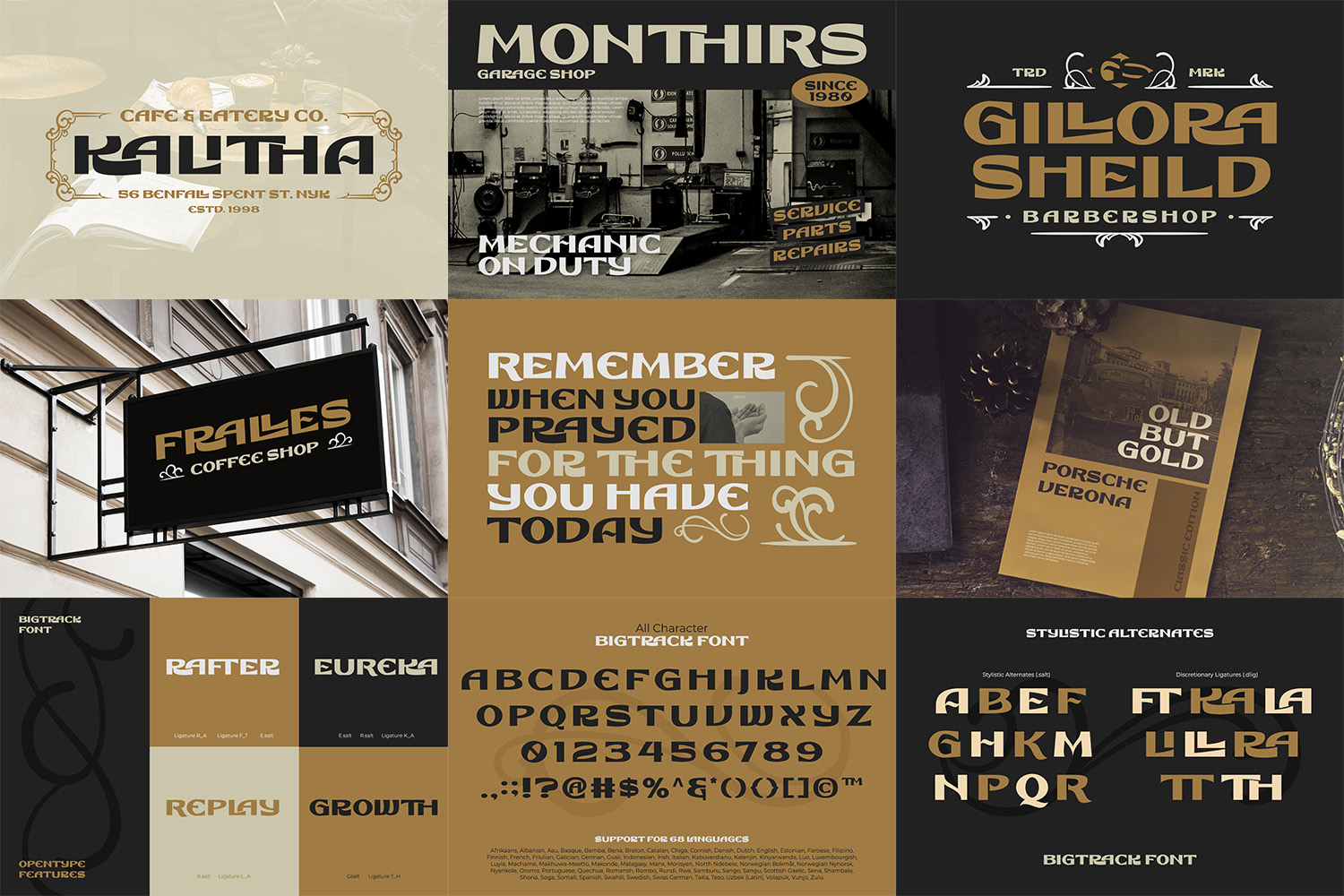
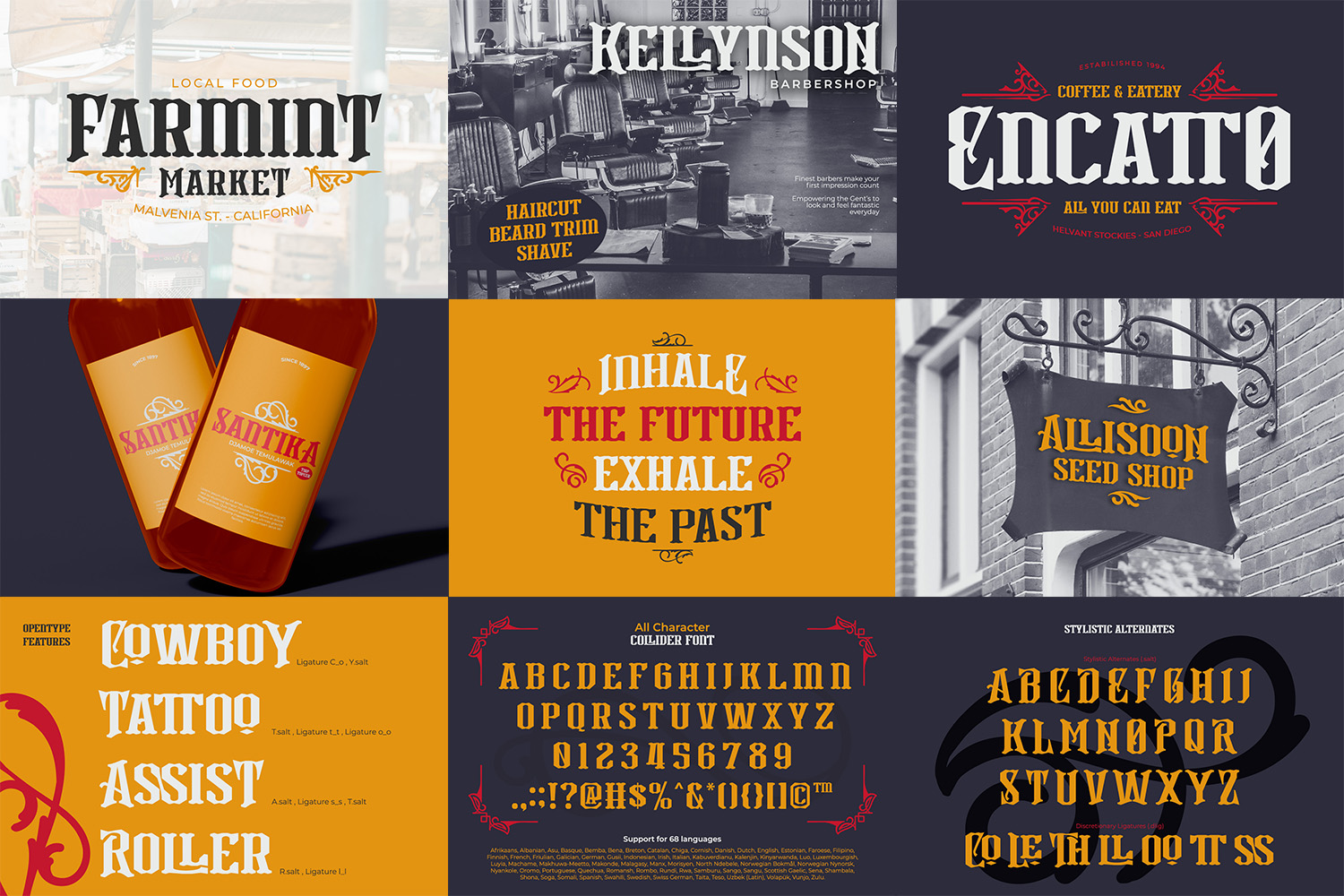
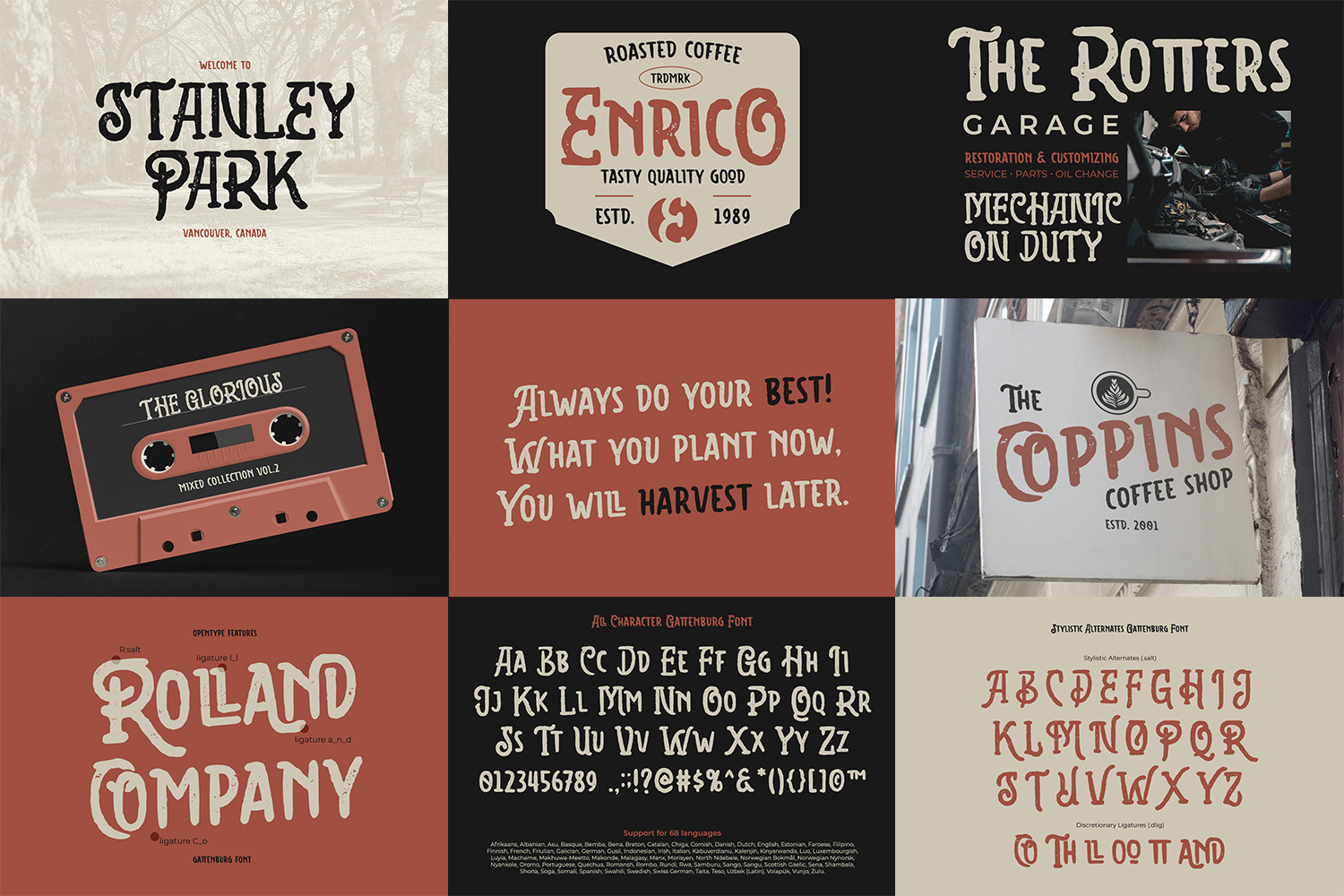
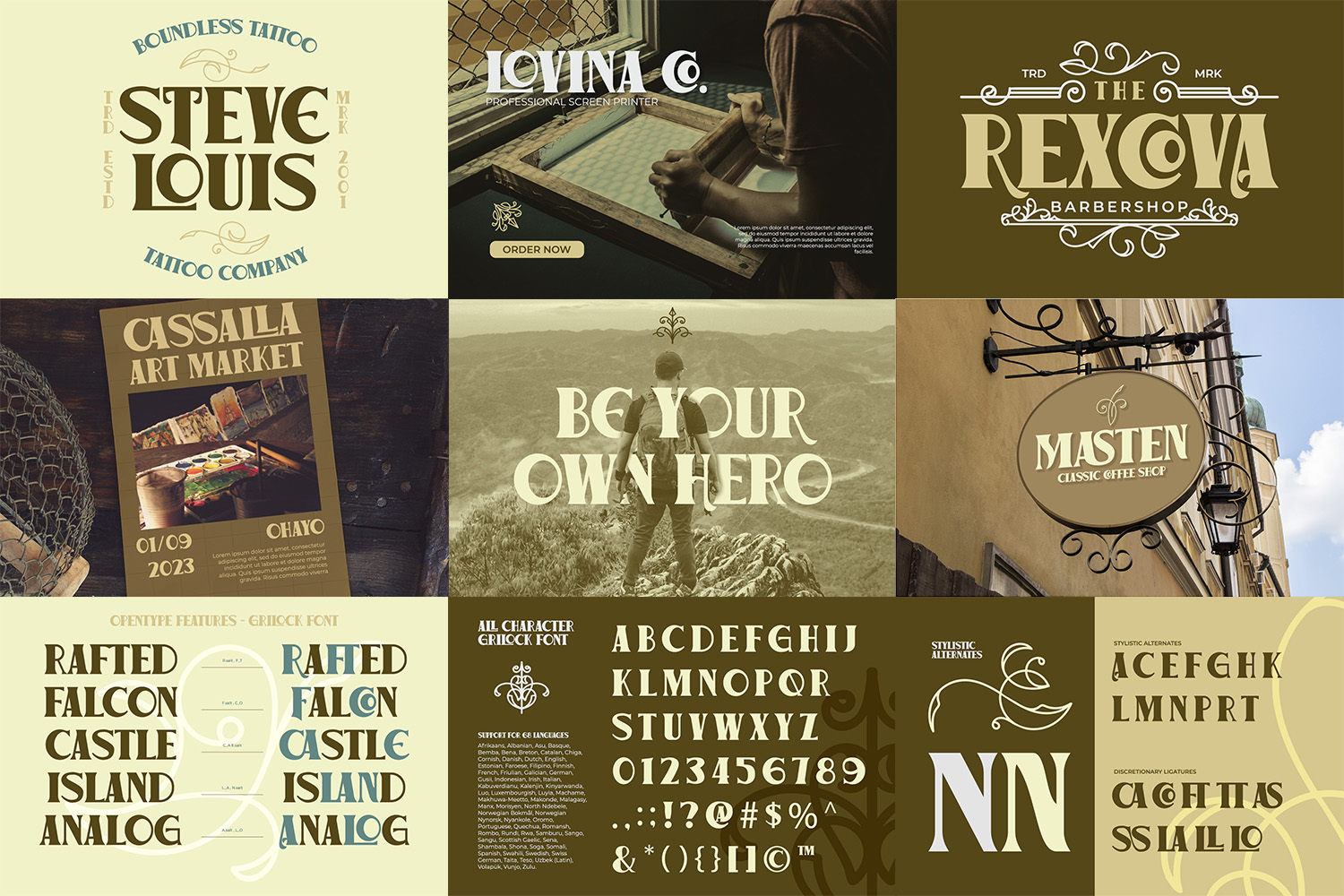
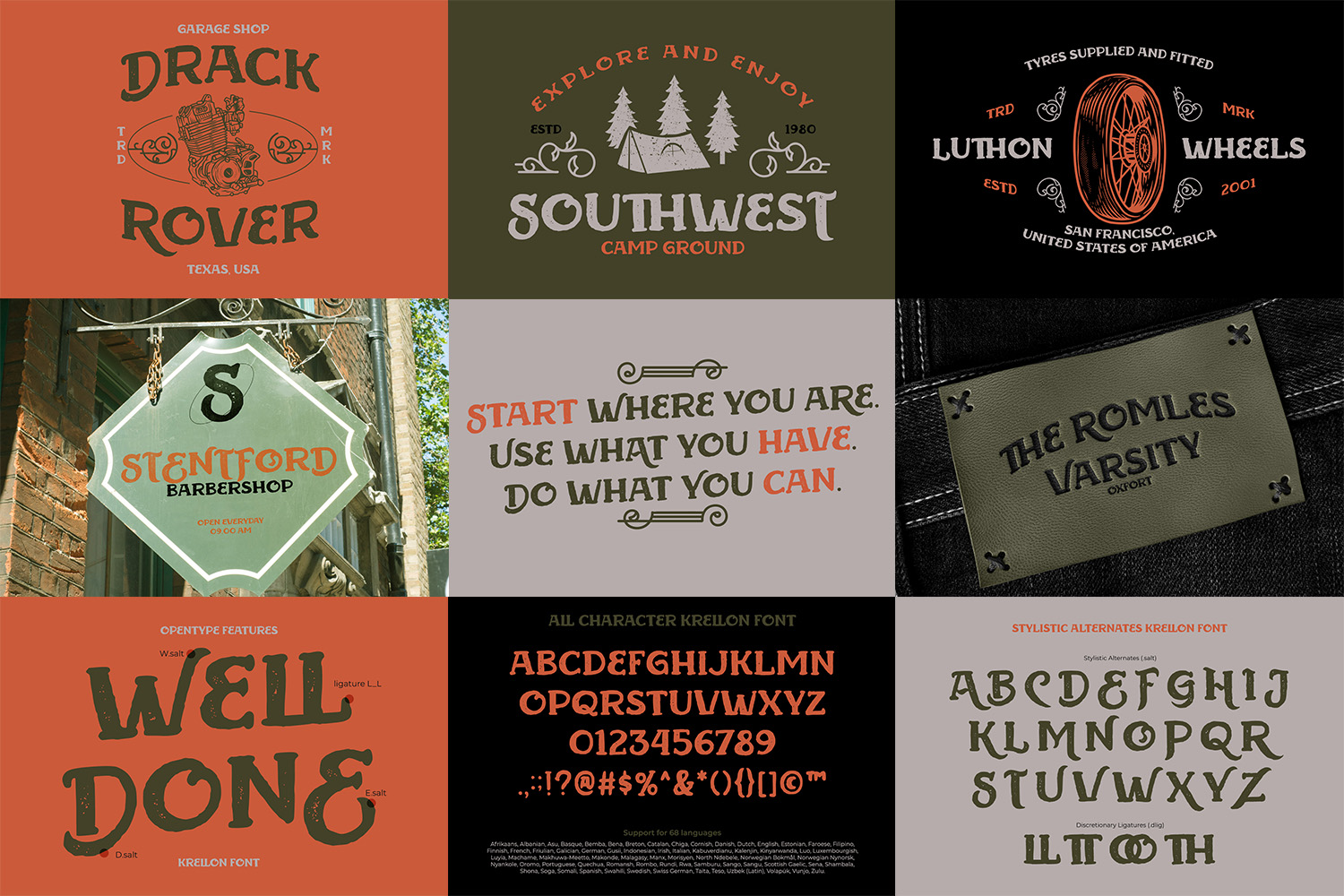
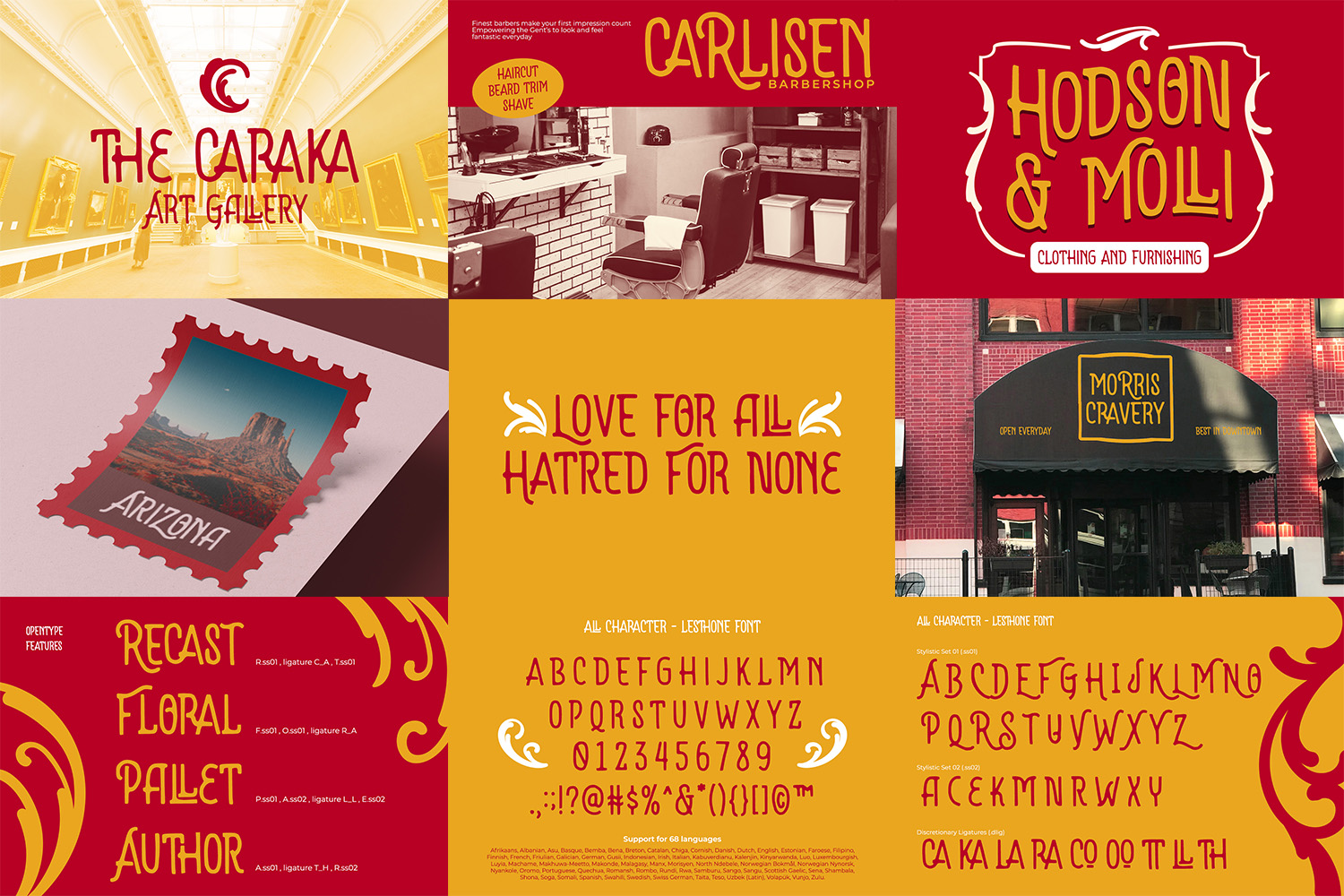
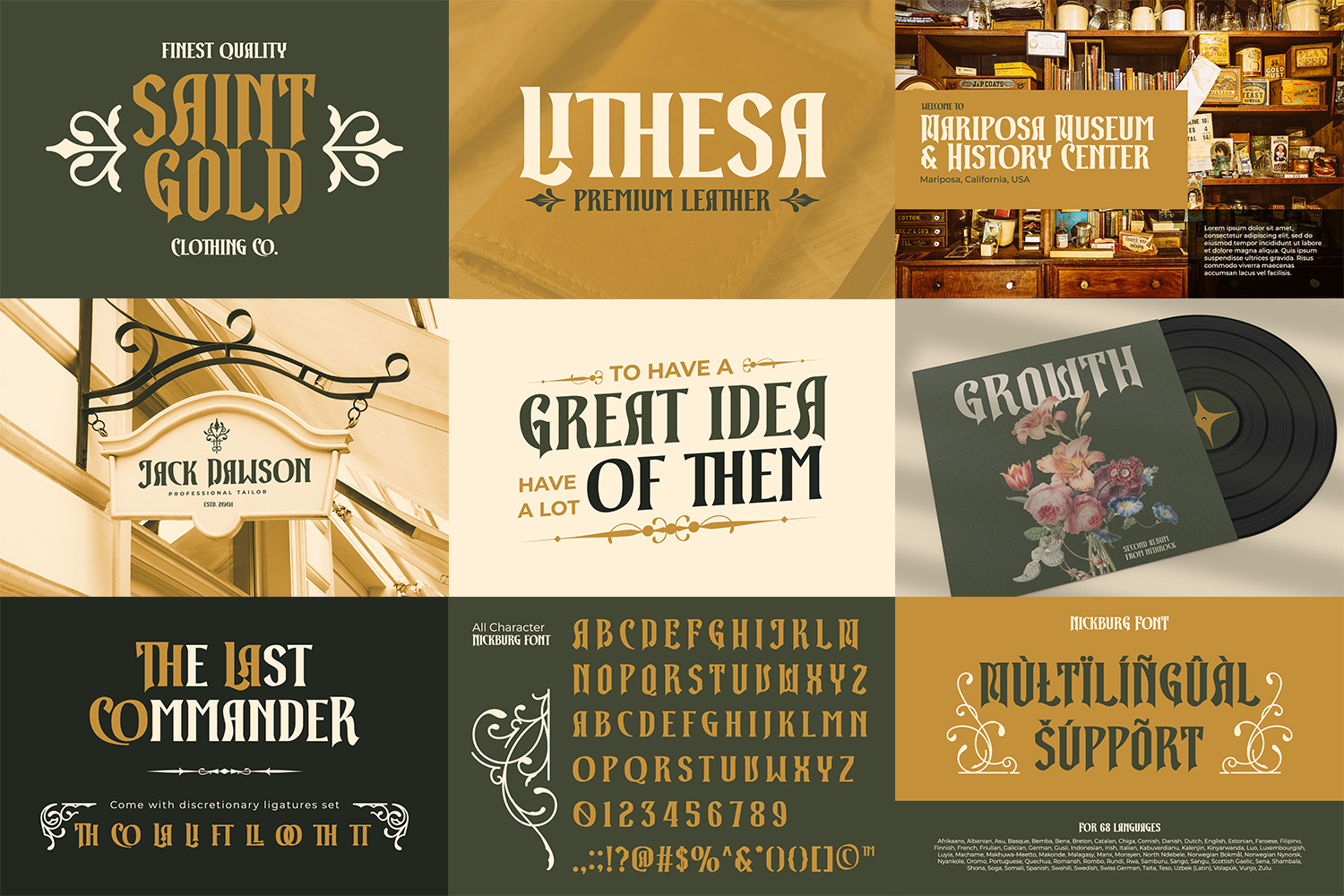
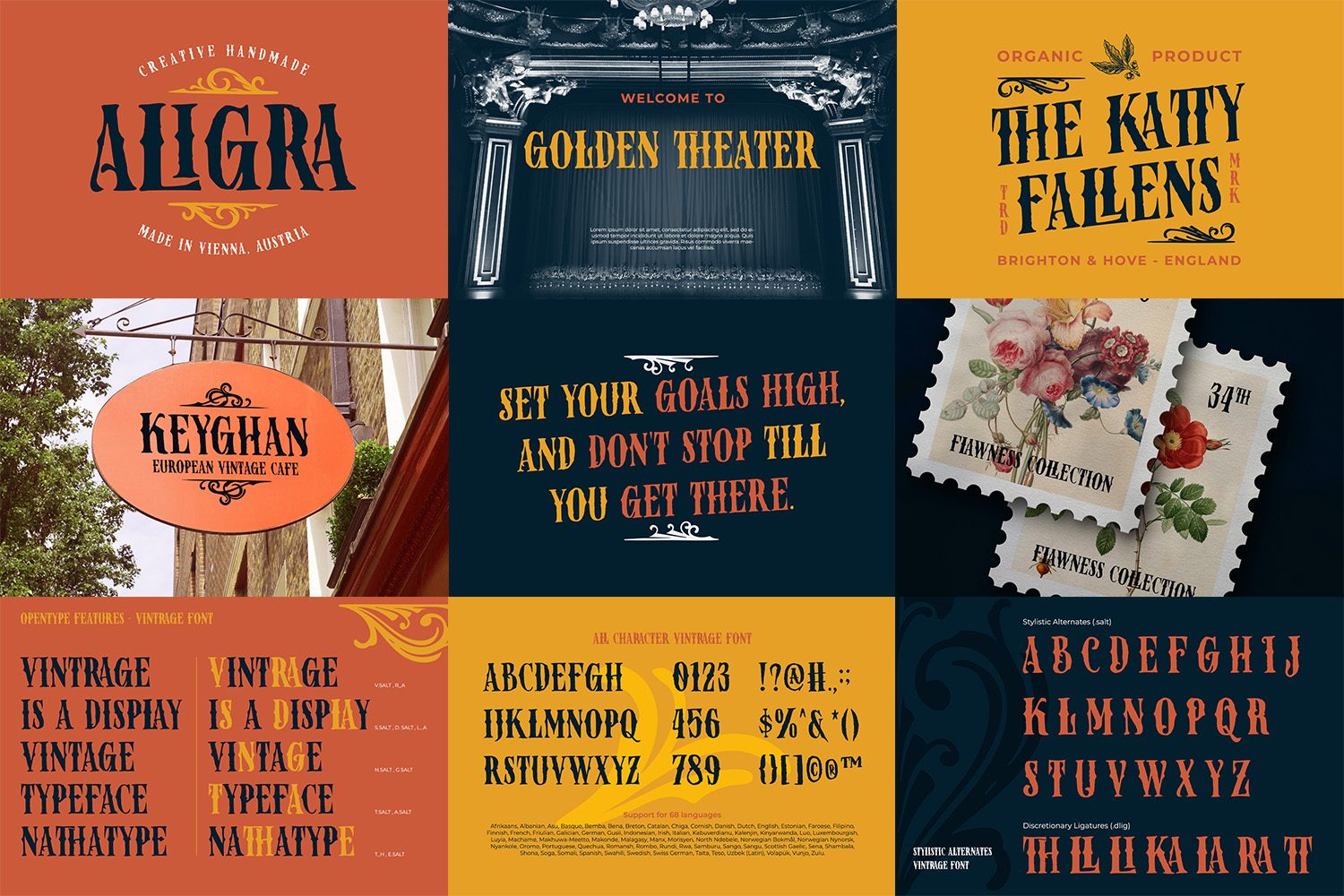
Hello, Everyone! Relive the charm of bygone eras and infuse your designs with a touch of nostalgia using the Vintage Font Bundle Vol 3.
This curated collection features ten distinct uppercase display fonts, each meticulously designed to capture the essence of vintage elegance and retro appeal. Create gorgeous headlines, logos, attention-grabbing titles, branding materials, editorial layouts and more with this bundle.
The fonts include full set of character and glyph and it also includes Multilingual Supports to help you reach a global audience. See the previews above to get some inspiration on how you can use them.
Fonts include are :